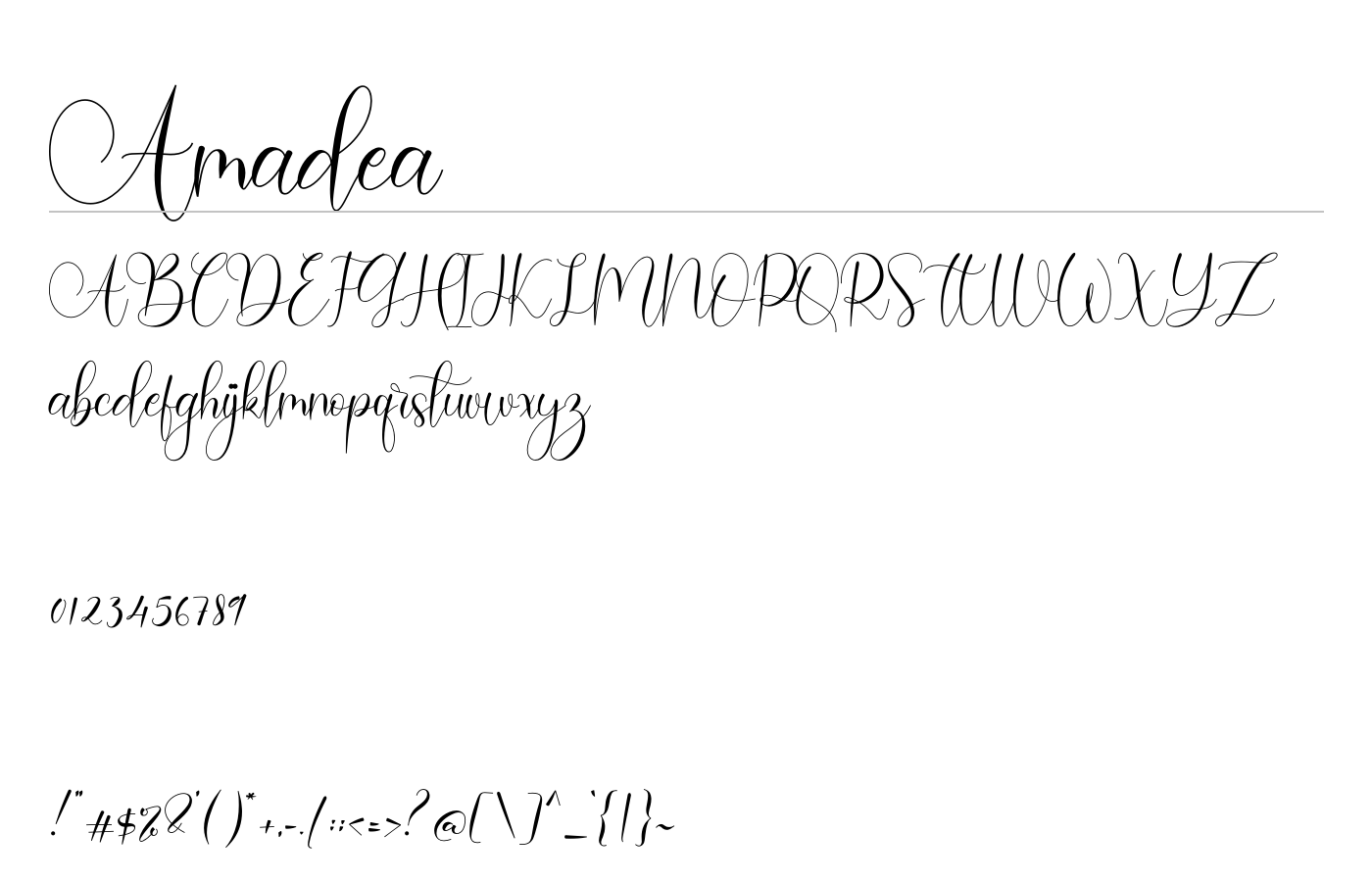
Amadea is an elegant script font characterized by its delicate, flowing strokes and graceful, high-contrast lines that create a refined, handwritten feel. With its tall, slender letterforms and intricate swashes, it conveys sophistication and charm, making it ideal for luxury branding, wedding invitations, and stylish editorial designs. This font’s airy and decorative style works beautifully in headlines and logos where a touch of elegance and personality is desired.
Amadea Font
About Amadea Font
| Font family | Amadea Font |
| Designer | Nissa Nana |